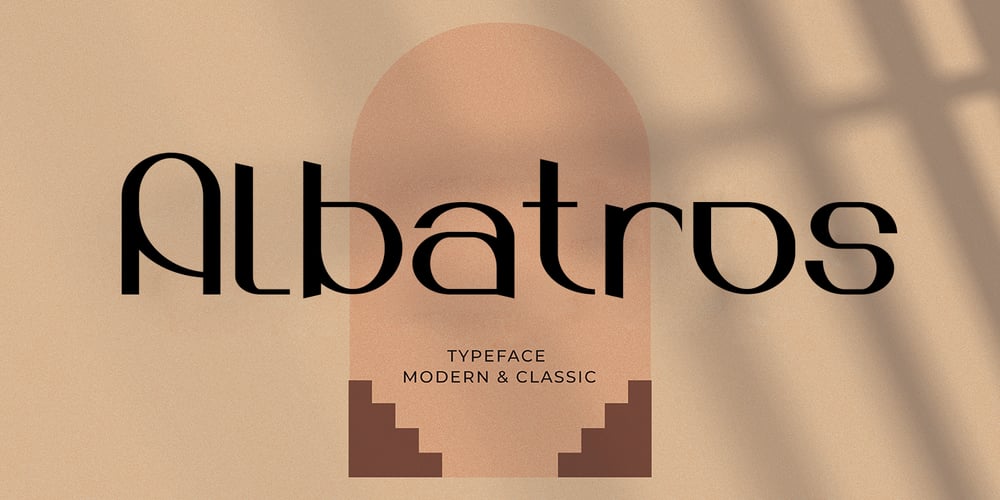
Albatros
Albatros font
Albatros Font Family was designed by khaidir and published by Gatype. Albatros contains 1 styles and family package options. Albatross is a beauty Display look. This font is suitable for invitation cards, decorations, clothing products, greeting cards and more. This font also has uppercase, lowercase, numbers, punctuation and multilingual. and there are several alternative ligatures and styles.Albatross is coded with Unicode PUA, which allows full access to all additional characters without having to design any special software. Mac users can use Font Book, and Windows users can use the Character Map to view and copy any additional characters to paste into your favorite text editor/app.How to access all the alternate characters using Adobe Illustrator:https://www.youtube.com/watch?v=XzwjMkbB-wQDesigner: khaidir